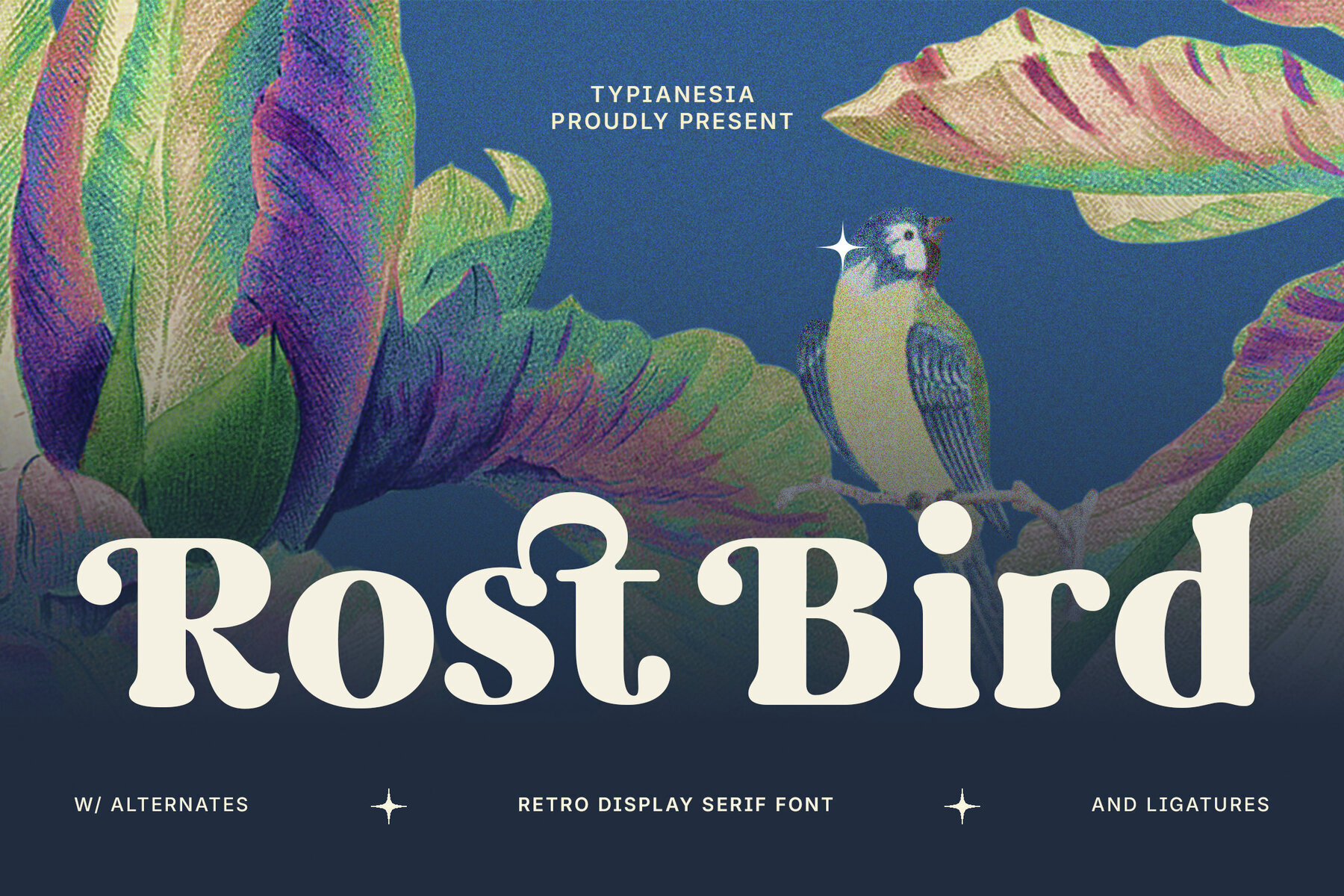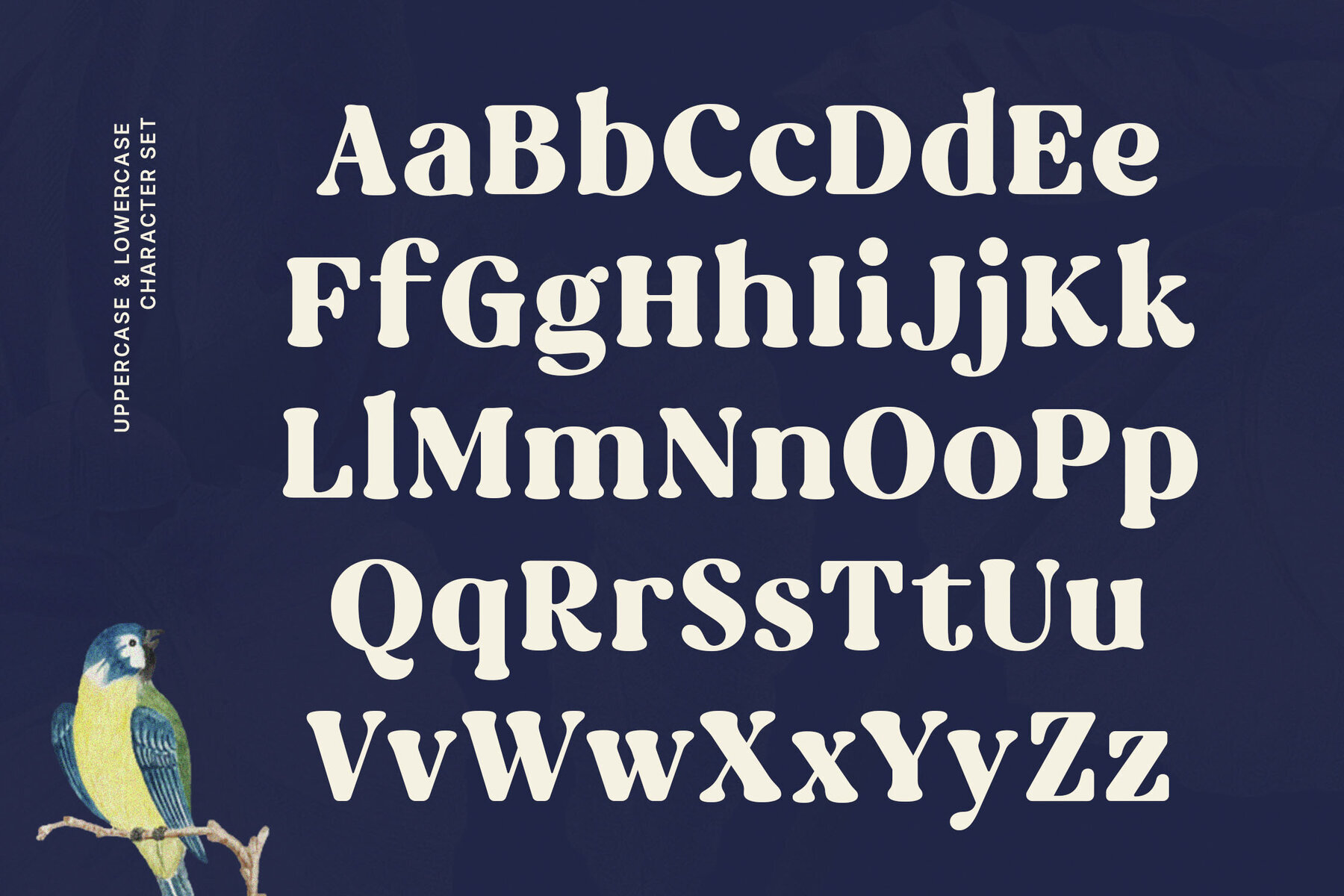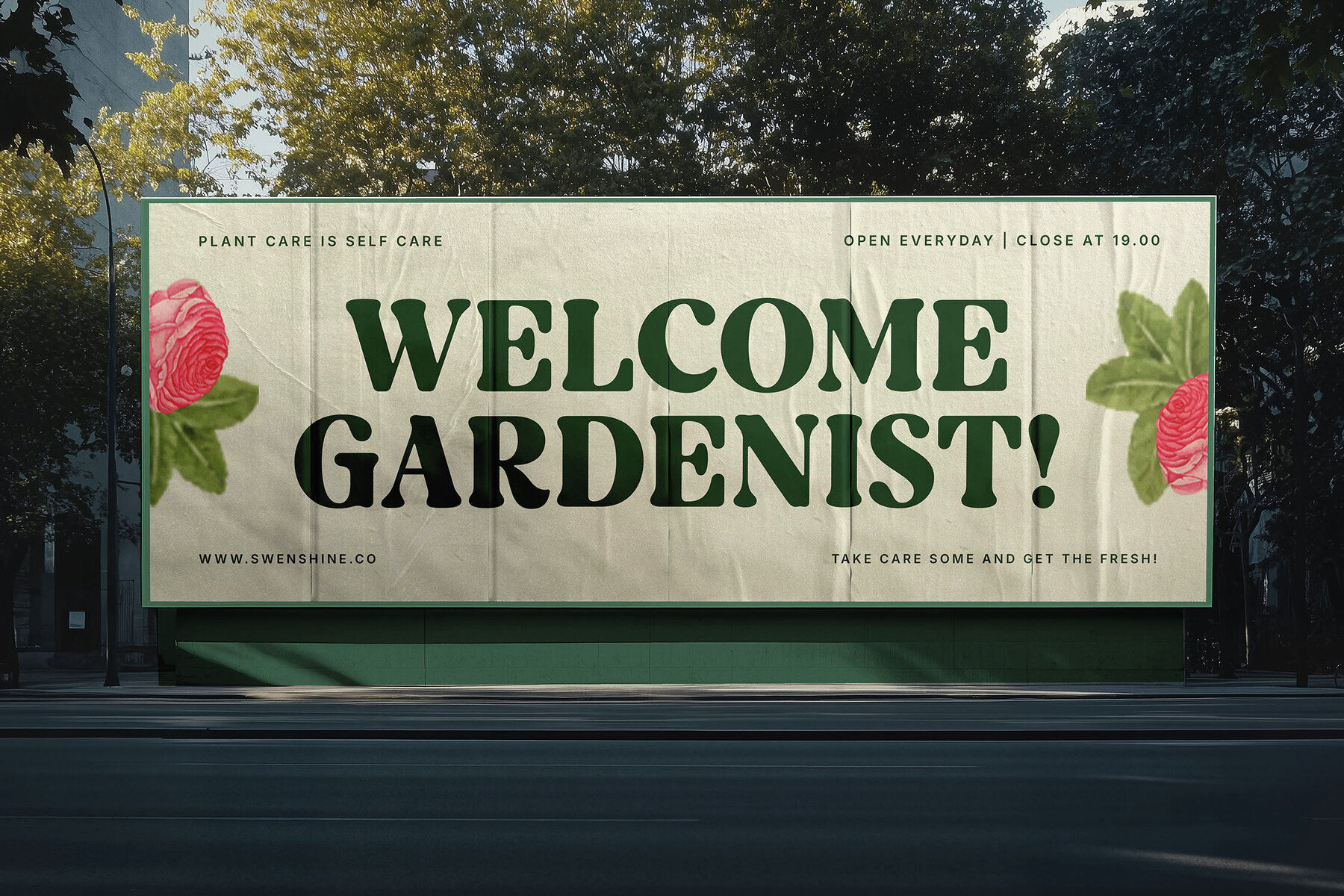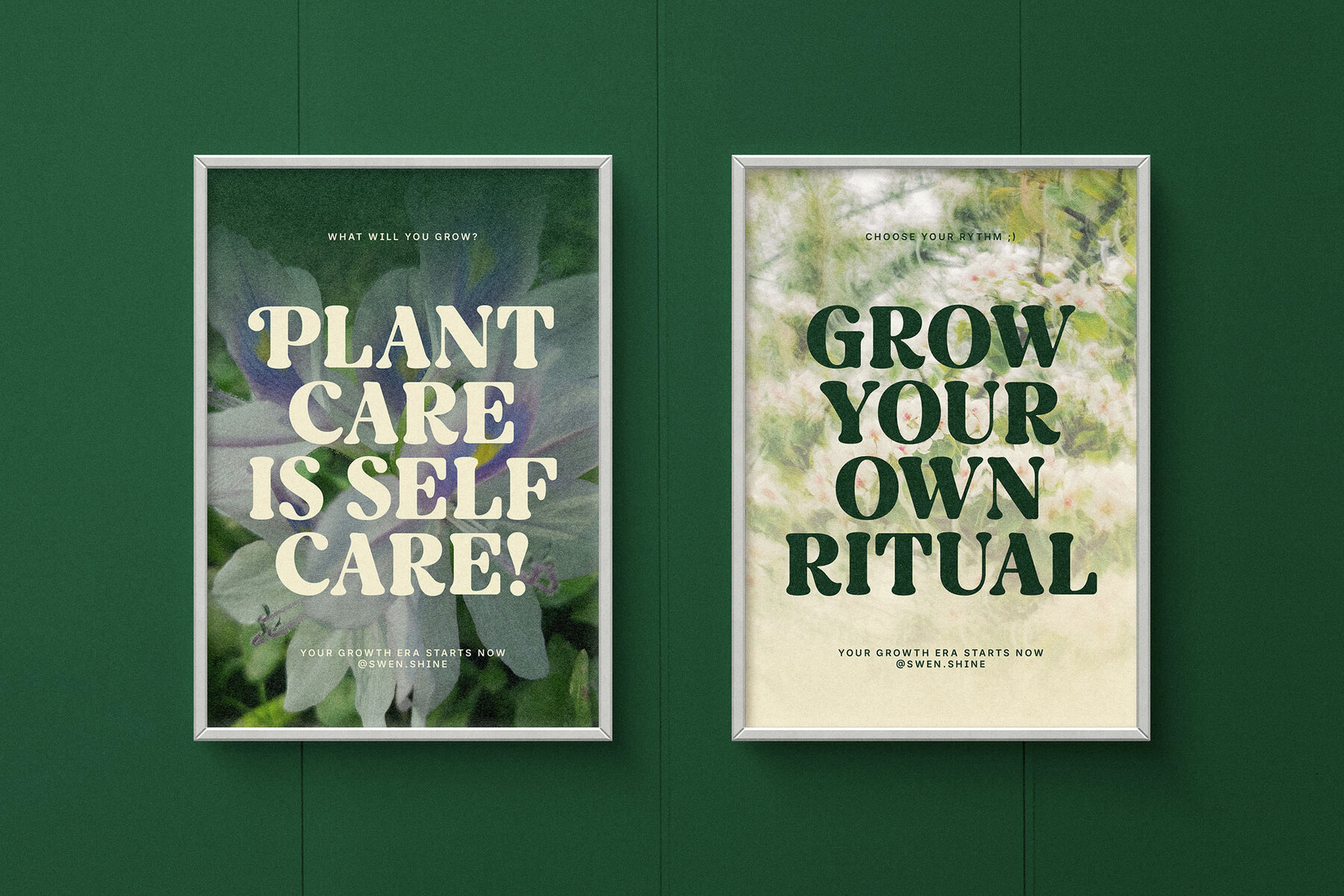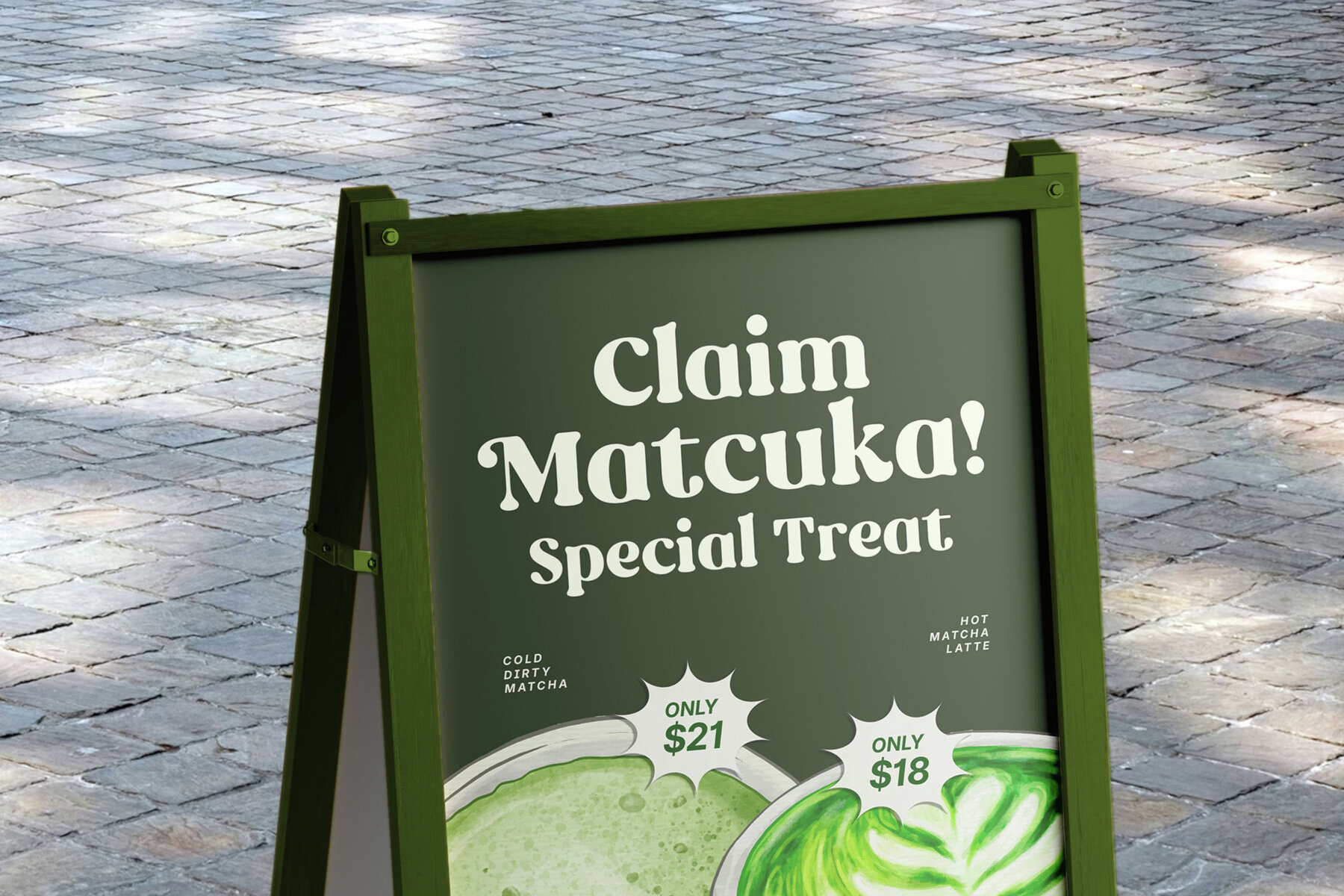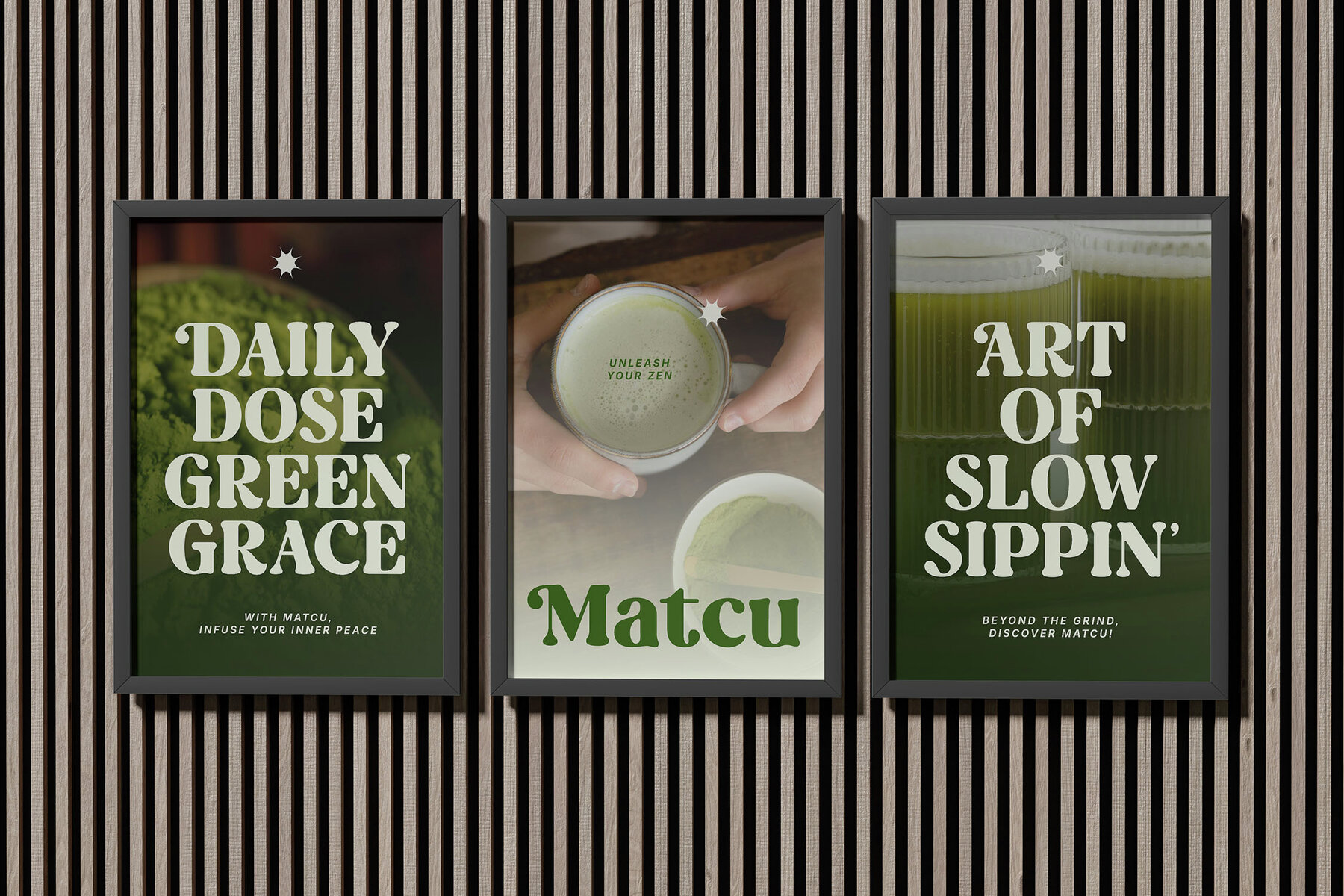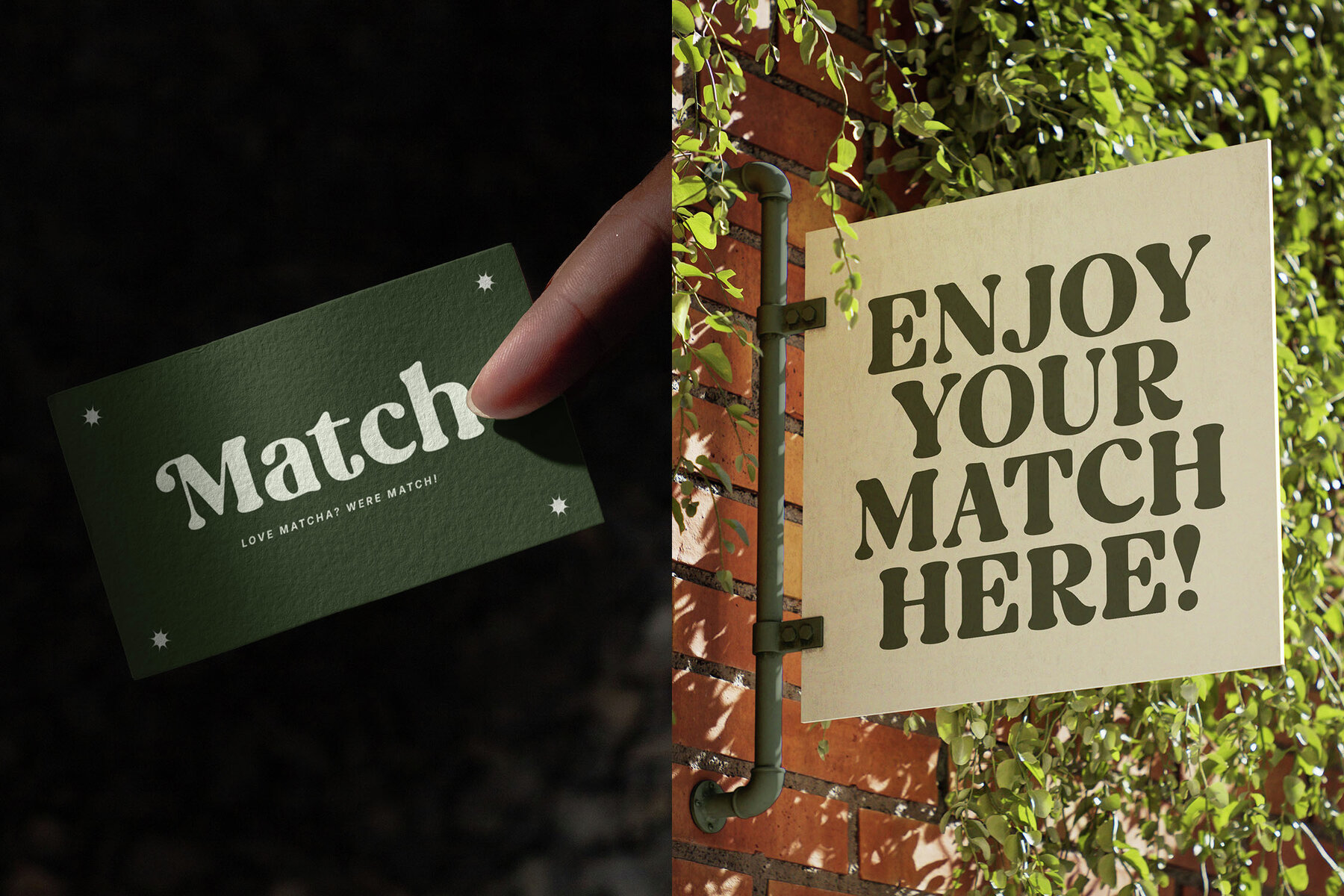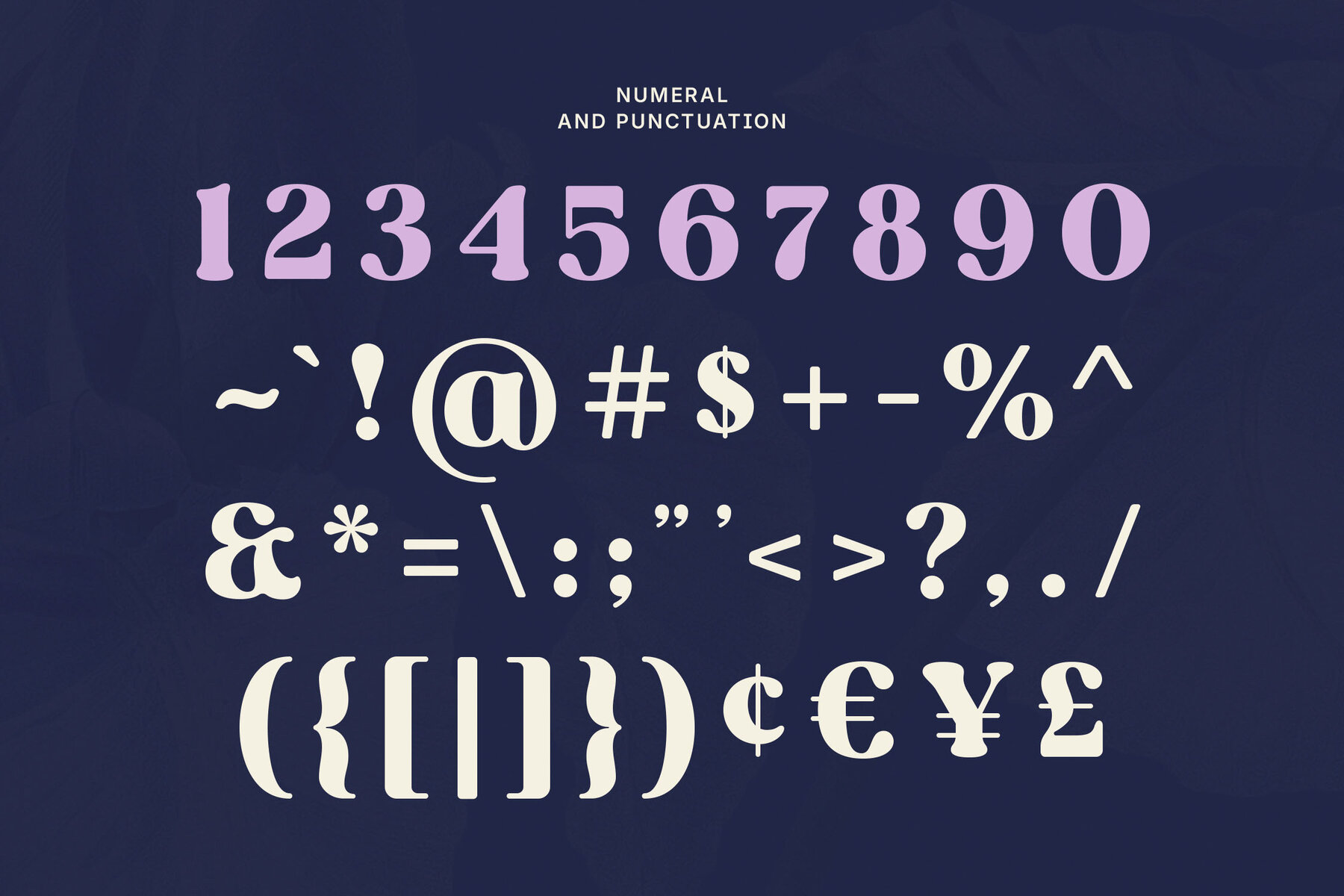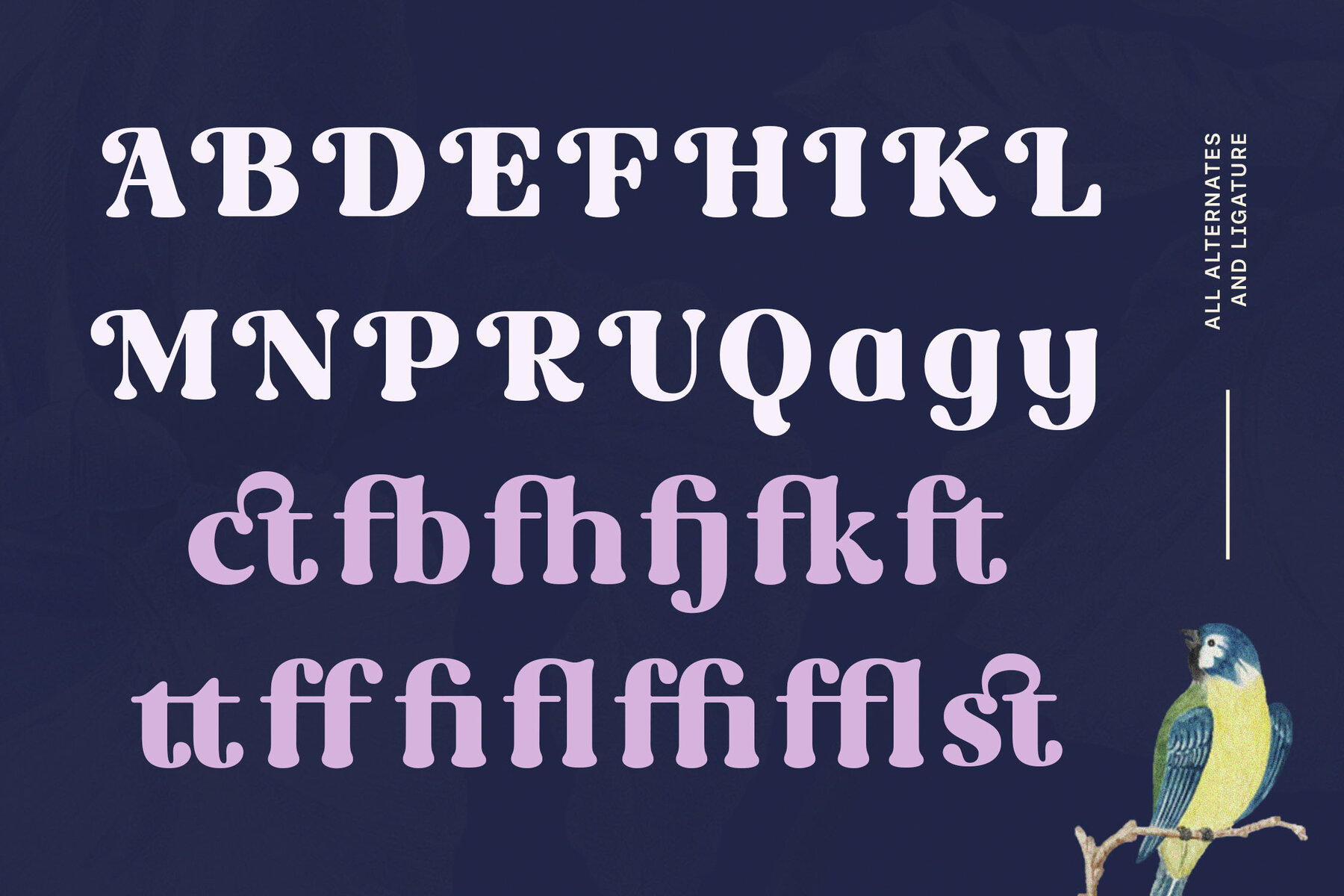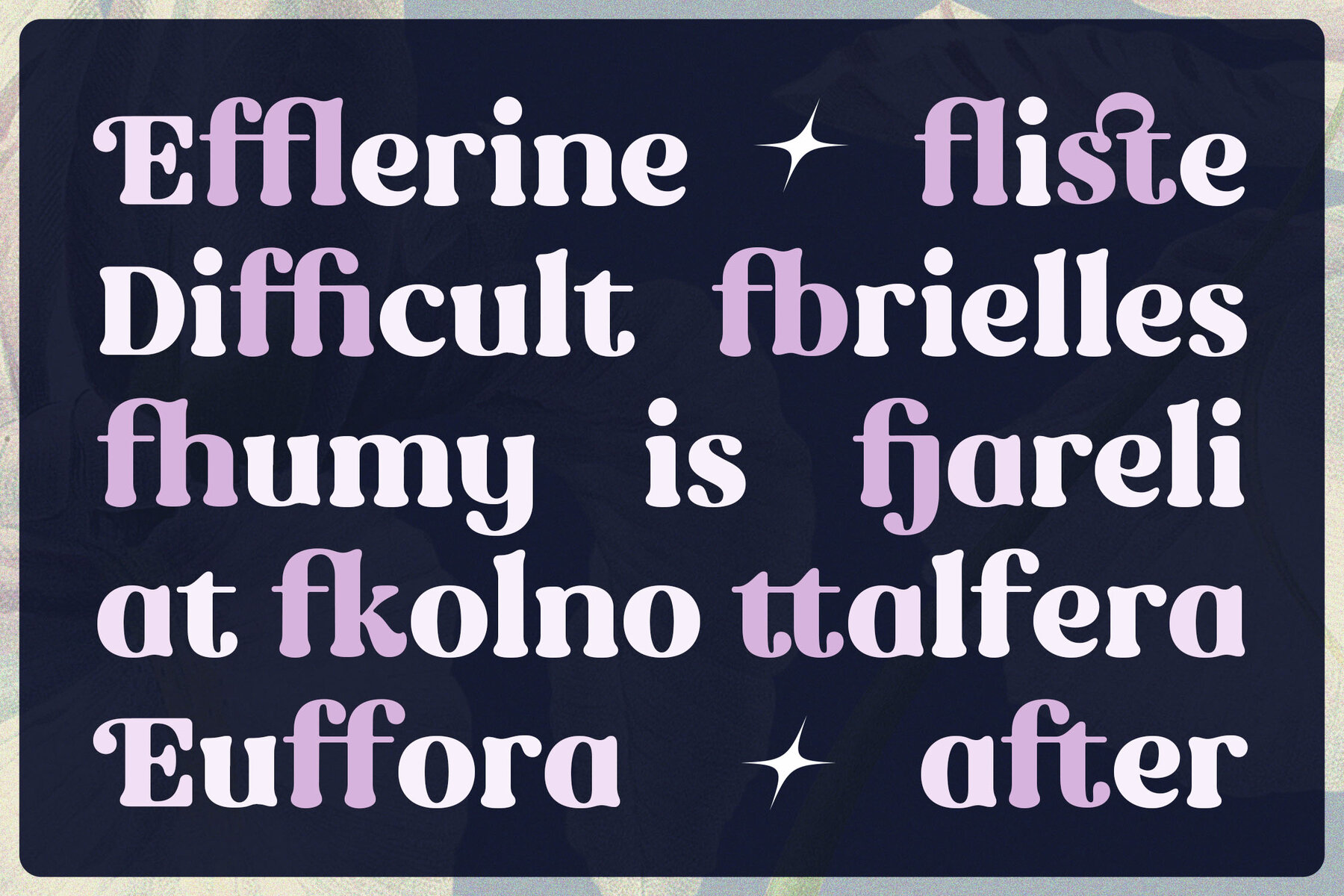
Rost Bird Font
Rost Bird Regular
Rost Bird is a captivating display serif font that beautifully marries vintage elegance with contemporary flair. Its unique curves and distinctive details capture attention and inject a personal touch into any design project. Ideal for logos, branding, product packaging, and more, Rost Bird offers a perfect blend of classic and modern aesthetics.Rost Bird: A Retro Display Serif with Modern Elegance